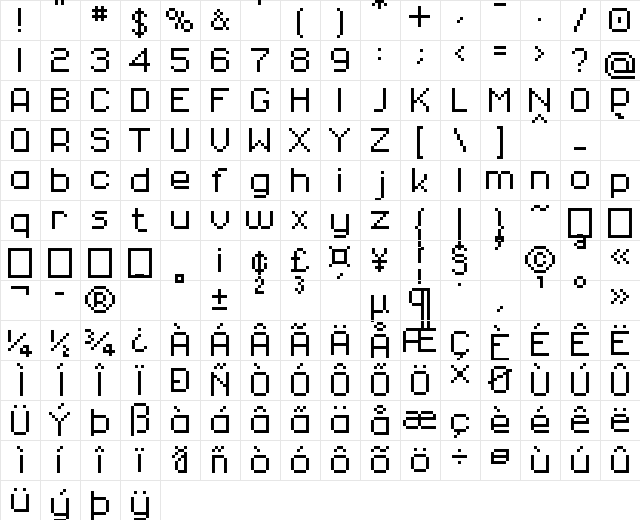
01Systematix8 Regular
Design Context for 01Systematix8 Typeface
01Systematix8 takes a measured approach to typography — its balanced proportions and neutral character make it a reliable workhorse for both digital and print work.